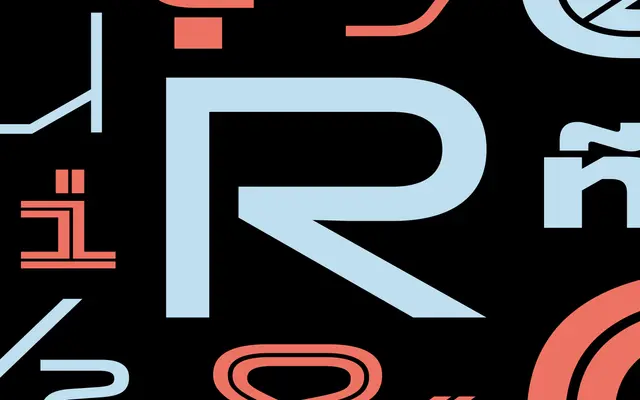
Shader
Dalton Maag · Rafael Saraiva · 2021
Shader specimen from Dalton Maag
A gaming display sans by Rafael Saraiva with Solid and Inline variable styles across nine weights, tuned to read on stream and shout in headlines.
A display sans by Rafael Saraiva built around an esports brief. Eighteen styles split between Shader Solid and Shader Inline, each variable on weight from Hairline to Black, so the same family can hold ranking tables and team names at small sizes then push into chunky inline lockups for tournament keyart. The sharp angles and broadcast-friendly proportions slot into gaming identity, streaming overlays and tech editorial that wants a distinctly gamer voice.
Dalton Maag describe Shader as a sans typeface that celebrates esports with a proud gamer aesthetic, legible and performant on screen but expressive and distinctive in display settings, with Solid and Inline variable fonts on an extensive Weight axis.